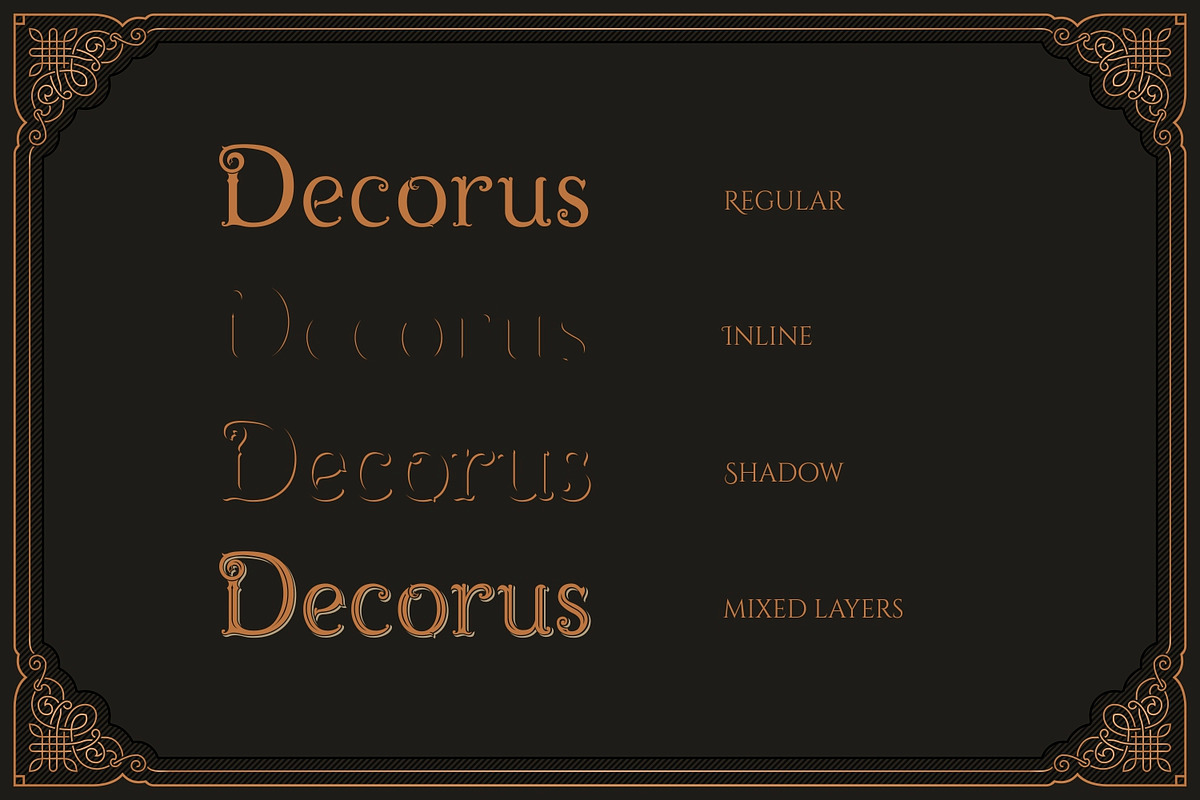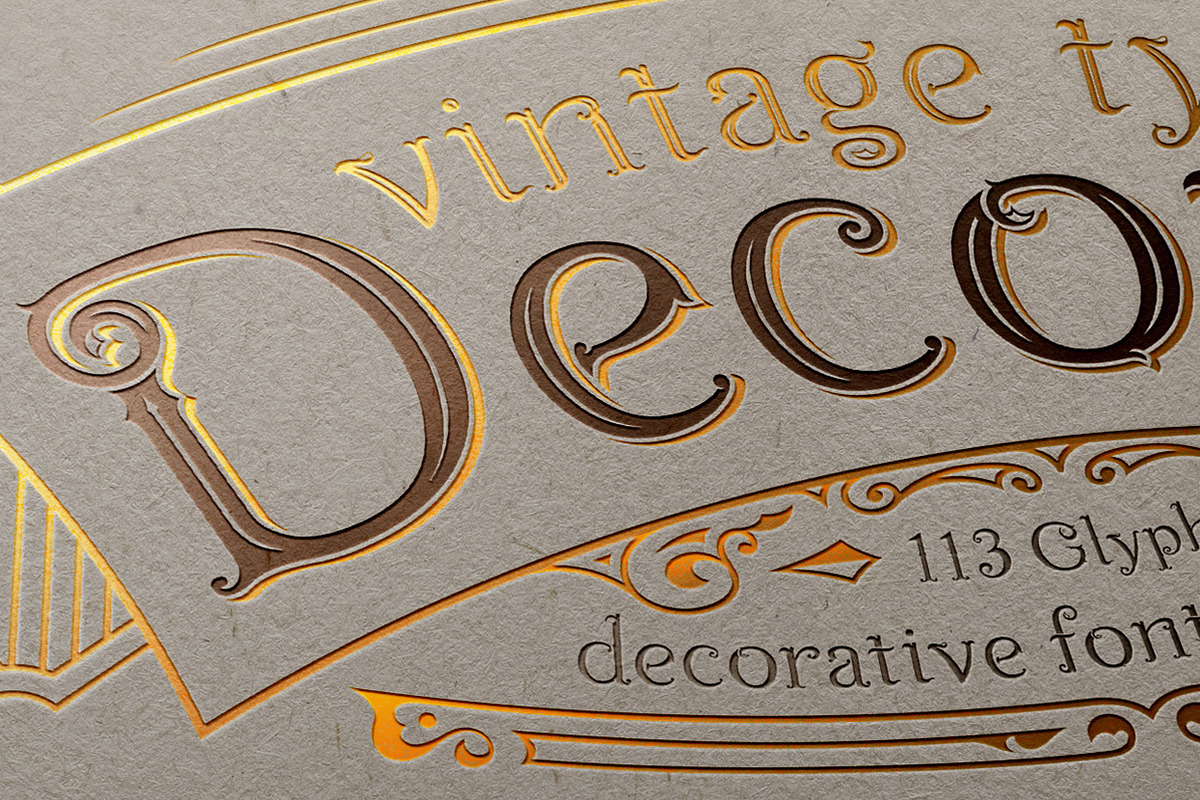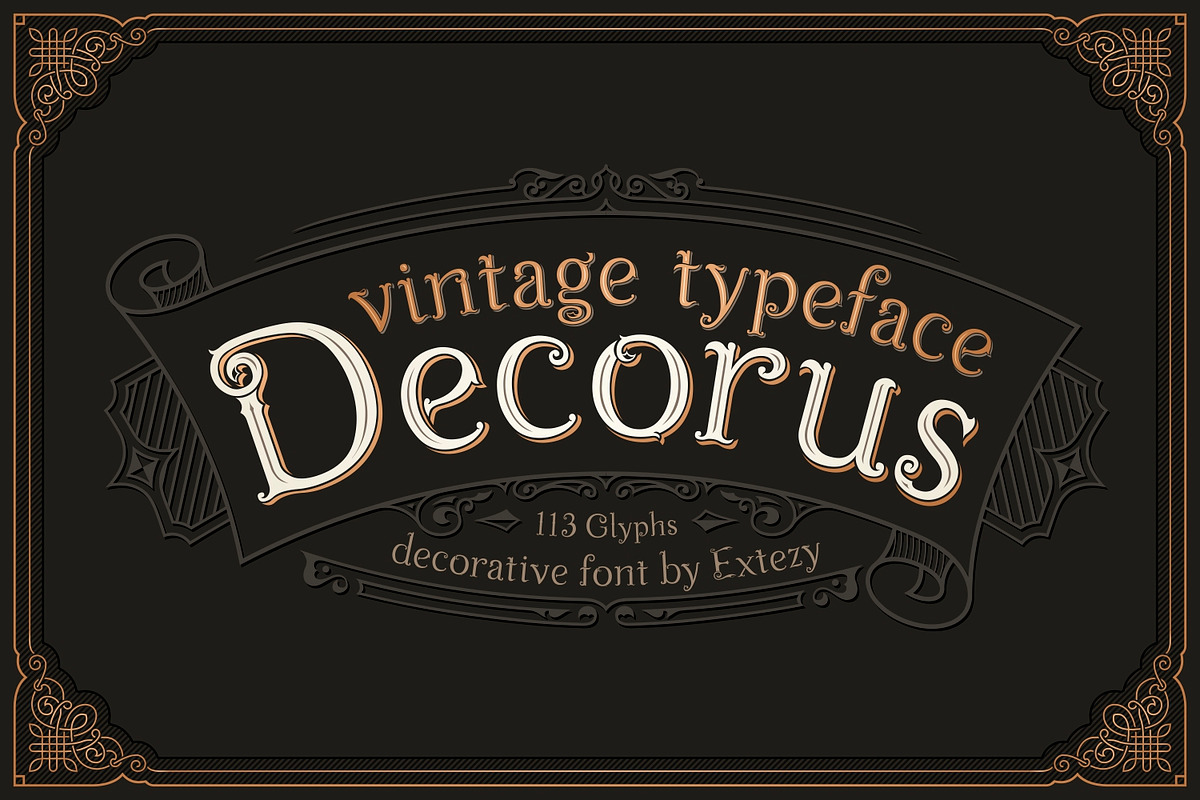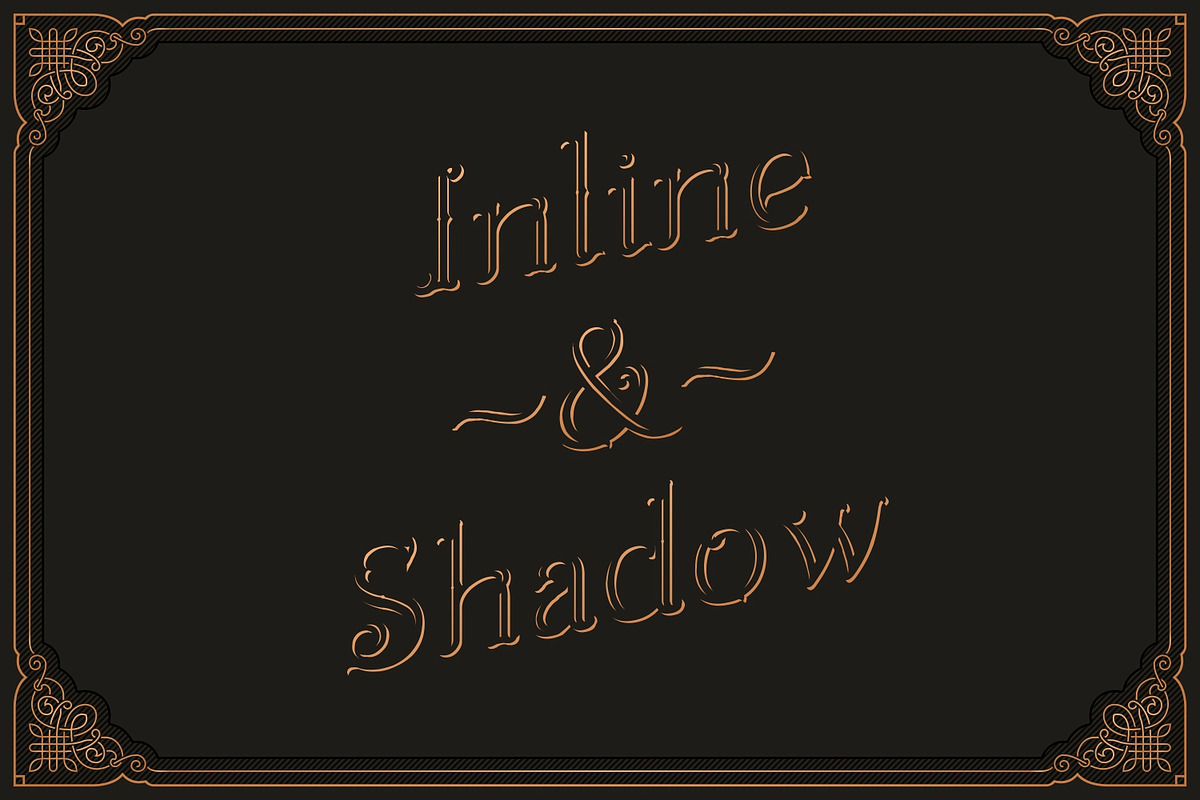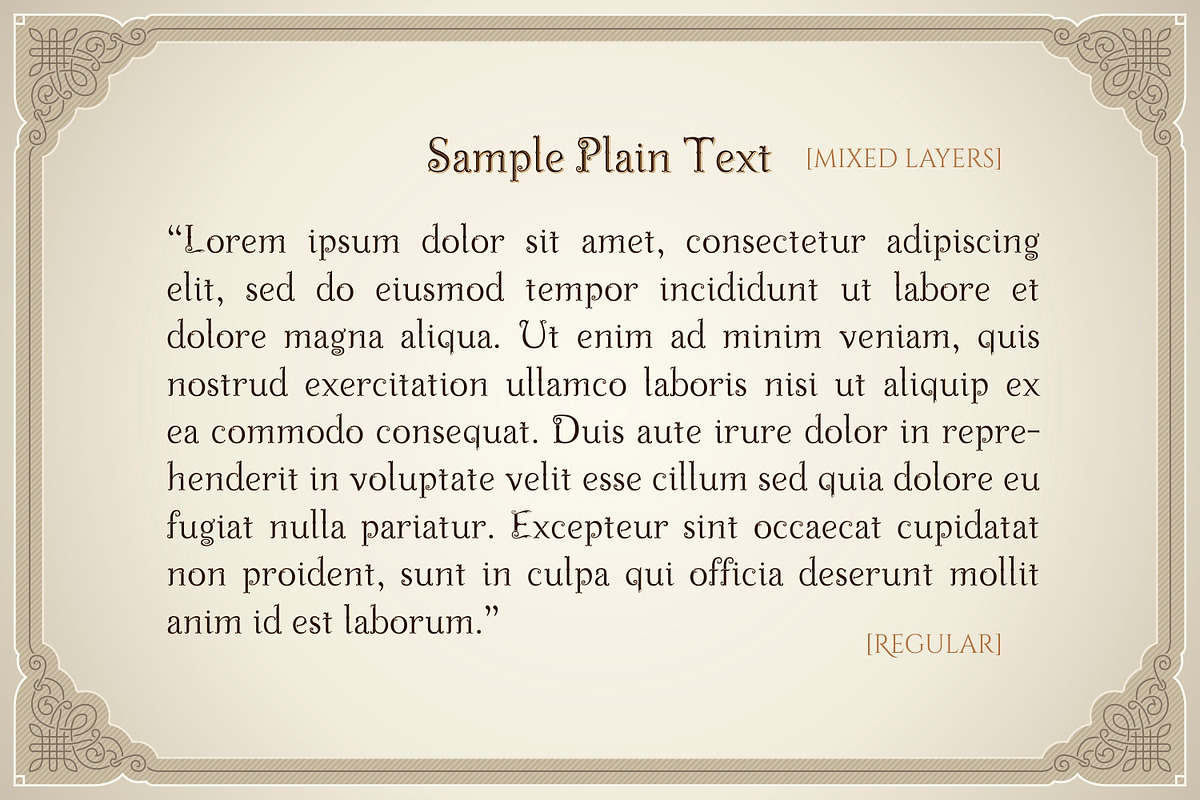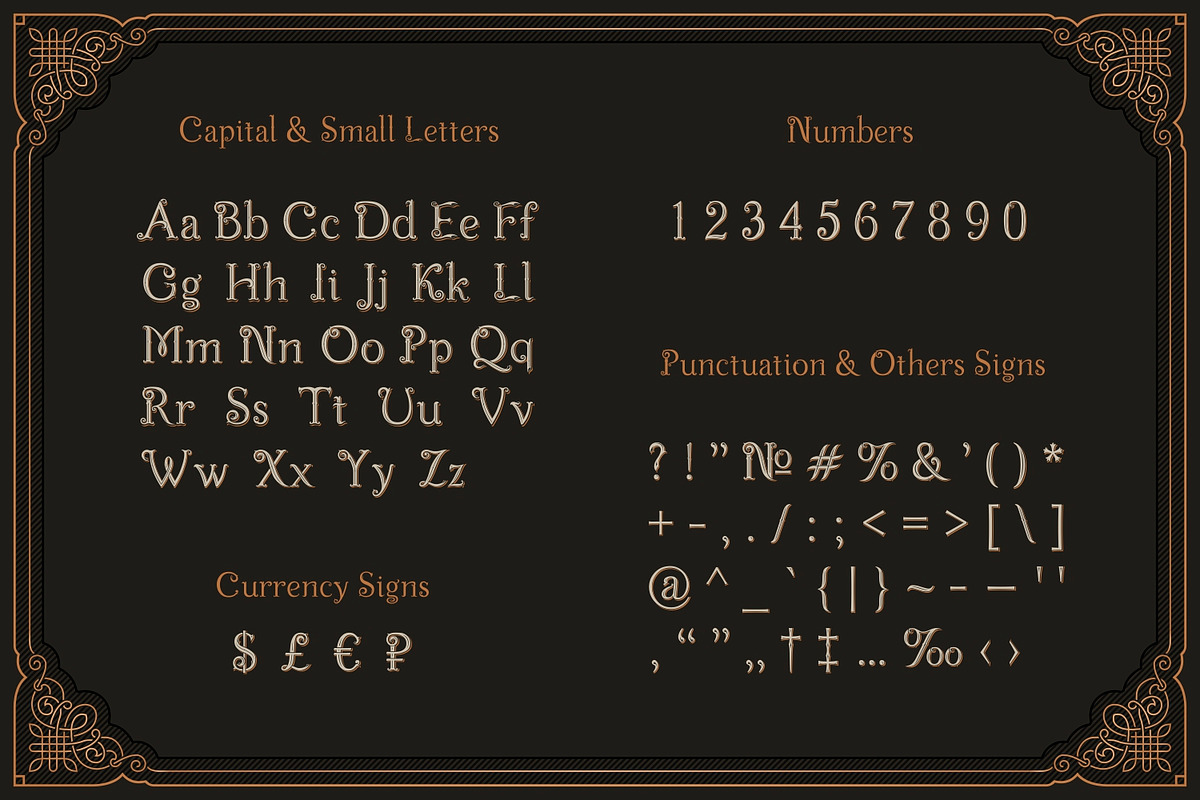
Decorus - Layered Font & Ornaments
Decorus is a decorative modern layered font. It has a regular outline. The font was created by me in 2017, but the spread only now. It has thin letters and symbols with a ornate design. This font can be used for everyday use in texts, instead of standard fonts, ideal for printing. It looks great on paper and on screen. Decorus can be used for headline, logo, invitation, packaging, etc. The font includes 113 glyphs.